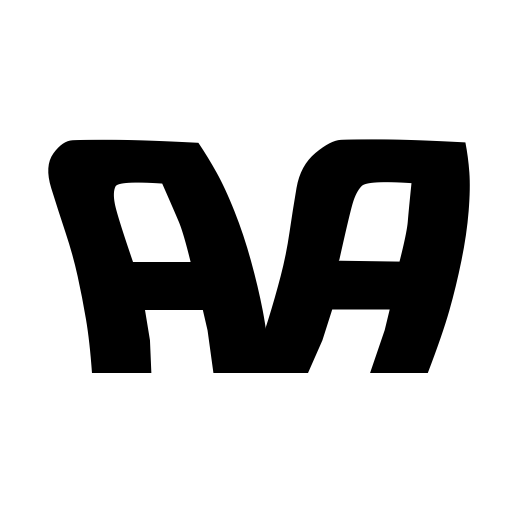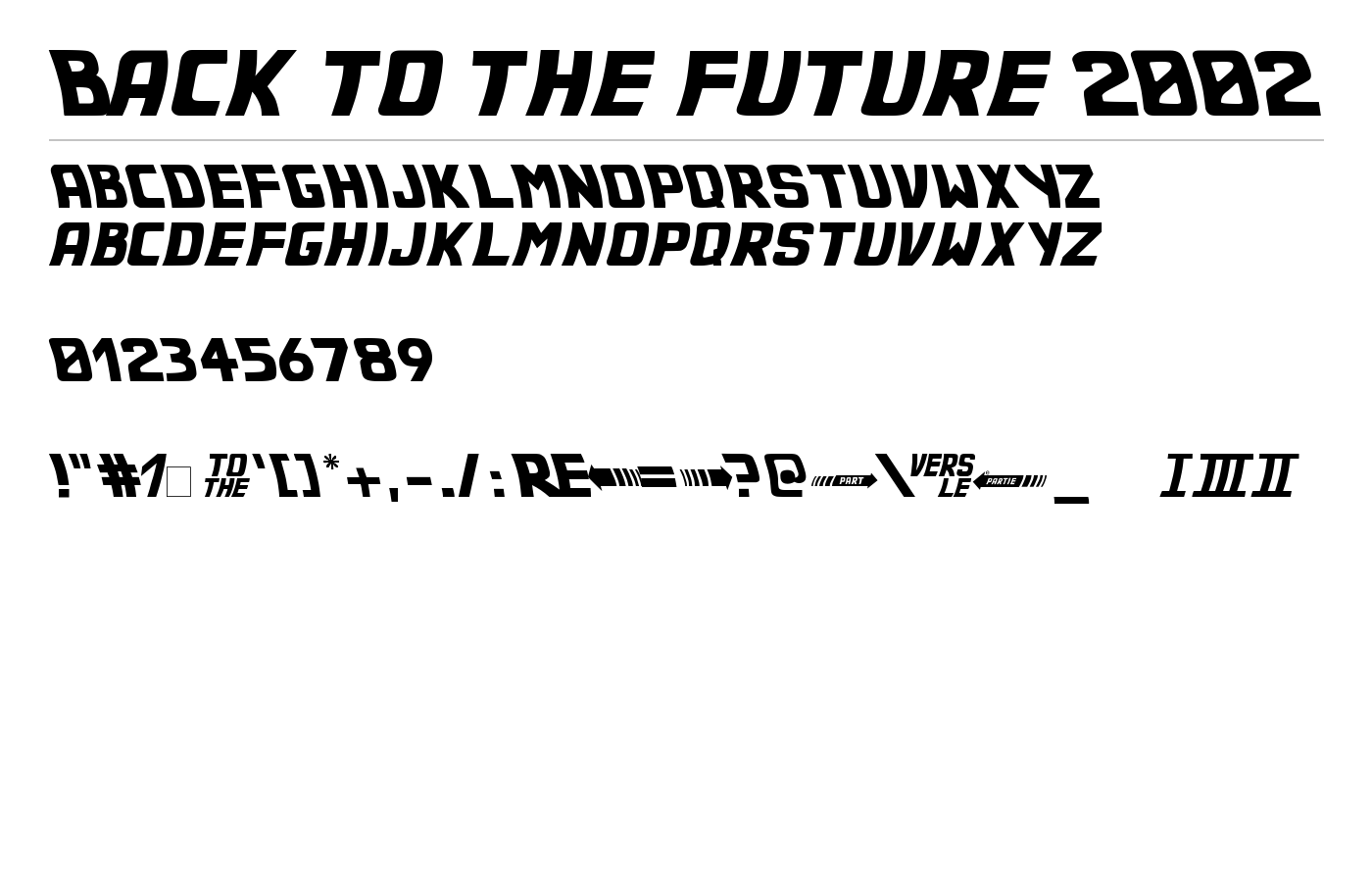
Back to the Future 2002 is a bold, condensed sans-serif font with a dynamic, futuristic feel. Its slanted, sharp-edged letterforms and high contrast strokes give it an energetic, sci-fi vibe, perfect for eye-catching headlines and branding that seeks to evoke a sense of speed and innovation. This font works best in logos, posters, or any design aiming to capture a retro-futuristic or adventurous mood.
Back to the future 2002 Font
About Back to the future 2002 Font
| Font family | Back to the future 2002 Font |
| Designer | High-Logic - Erwin Denissen 1999 |